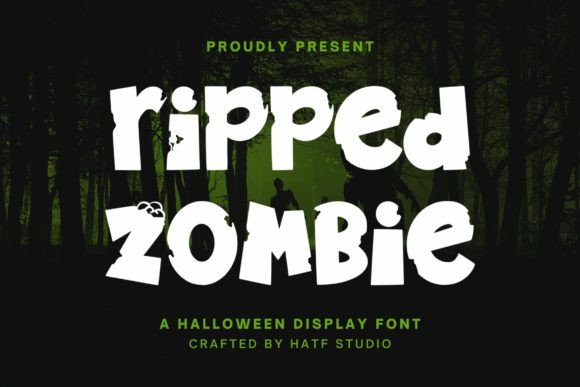
Unleash the eerie charm of Ripped Zombie, a display font that conjures a spooky and playful atmosphere. This captivating font, crafted by the skilled hands of Hatf Type, is a perfect match for all your Halloween or horror-themed creations.
Picture the spine-tingling effect Ripped Zombie will bring to your poster headings, invitations, and social media graphics. Its whimsical and slightly mysterious aura will enchant your audience, leaving them spellbound by your designs. This font is not just about aesthetics; it's an experience that transports you to a realm of enchantment and intrigue.
With Ripped Zombie, you can effortlessly evoke the spirit of Halloween, crafting designs that are both eerie and delightful. Its playful nature makes it ideal for creating eye-catching flyers, party decorations, and even T-shirt designs. Let your imagination run wild as you explore the endless possibilities that Ripped Zombie offers.
The versatility of Ripped Zombie extends beyond Halloween-themed projects. Its unique charm can add a touch of mystery to book covers, movie posters, and even fashion designs. Unleash your creativity and discover the myriad ways in which Ripped Zombie can enhance your artistic endeavors.
Join the growing legion of designers who have fallen under the spell of Ripped Zombie. Let this font be your creative companion, guiding you through a world of spooky enchantment and captivating designs. Transform your projects into haunting masterpieces that linger in the minds of your audience long after they've encountered them.